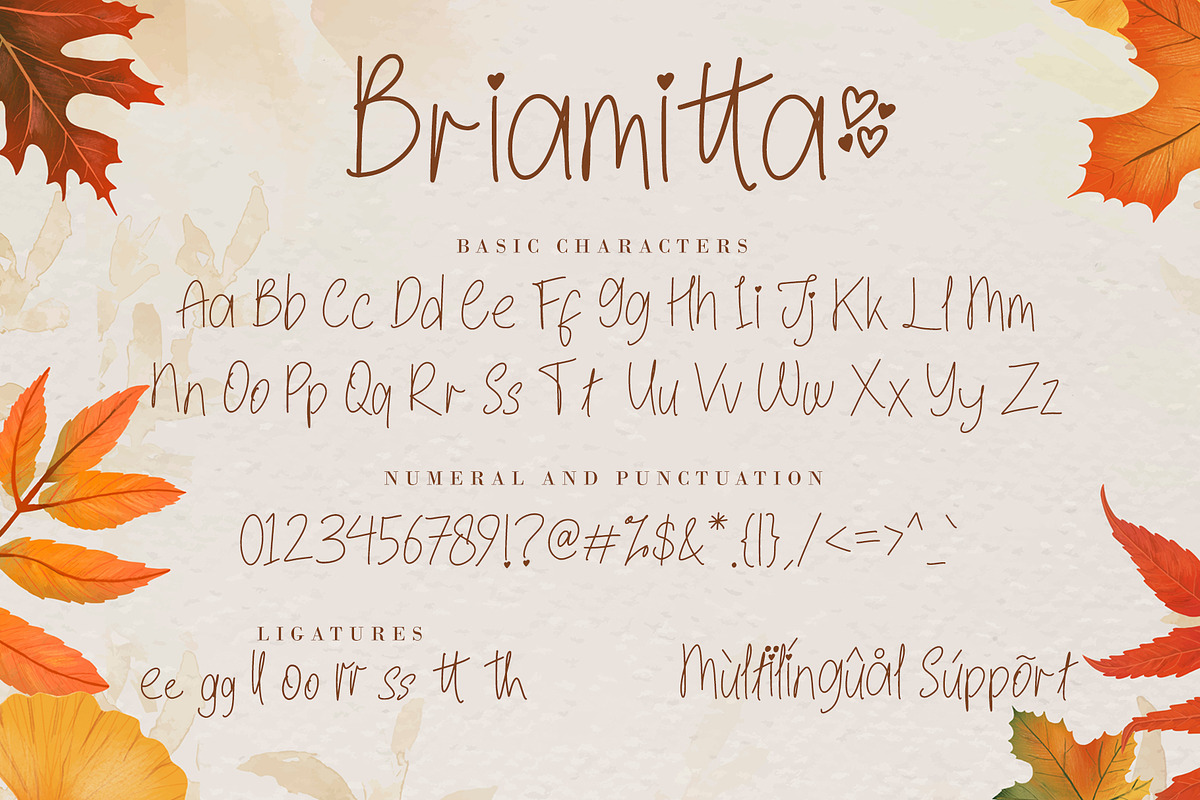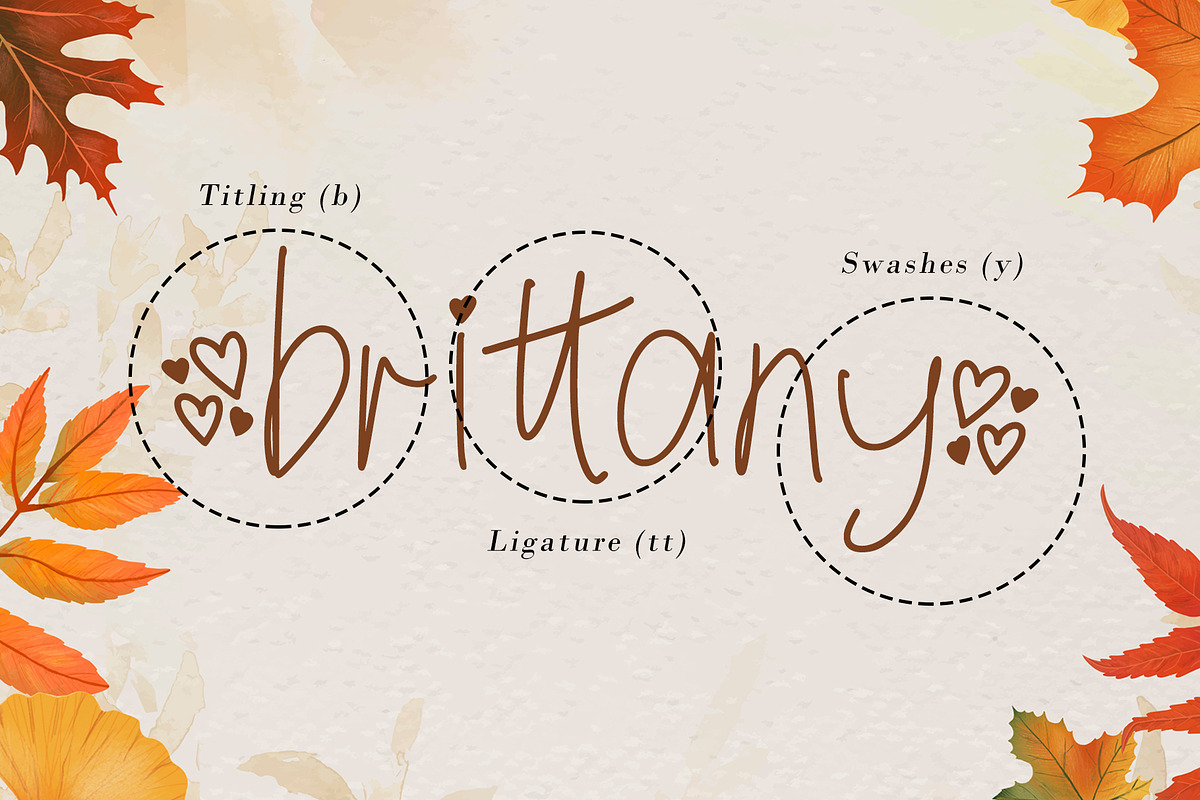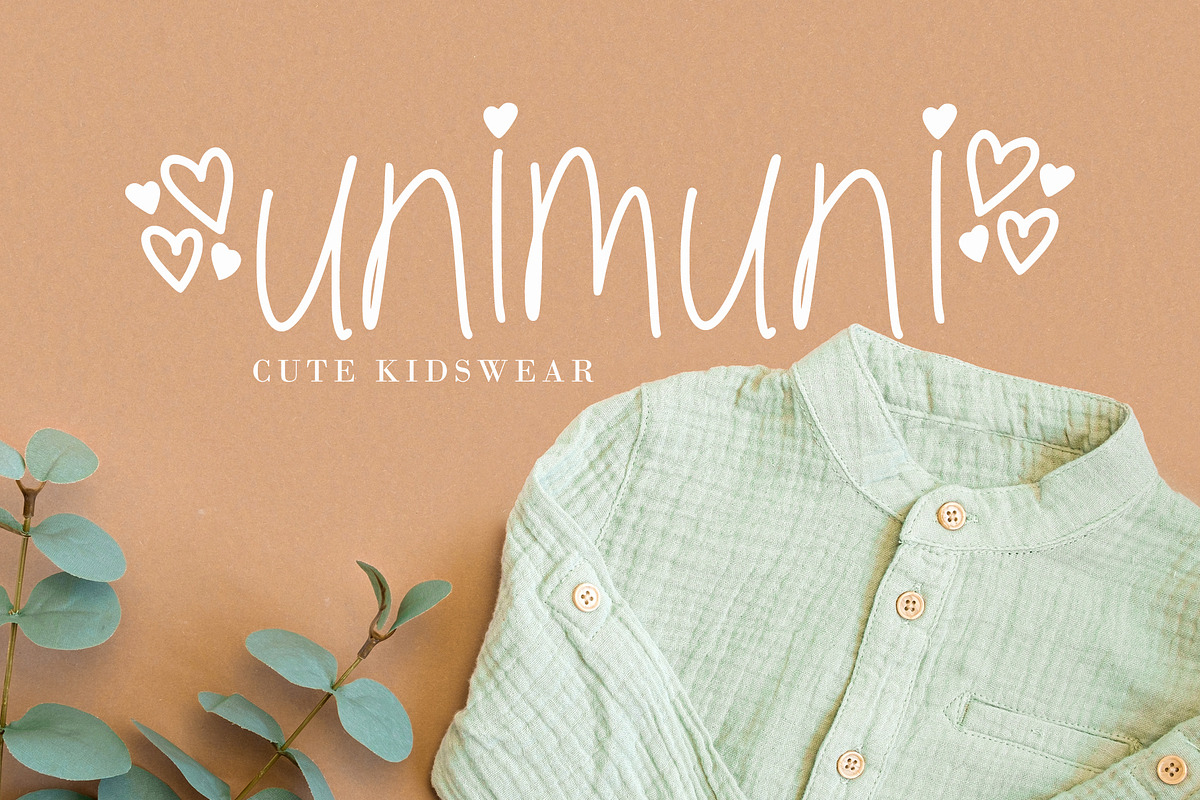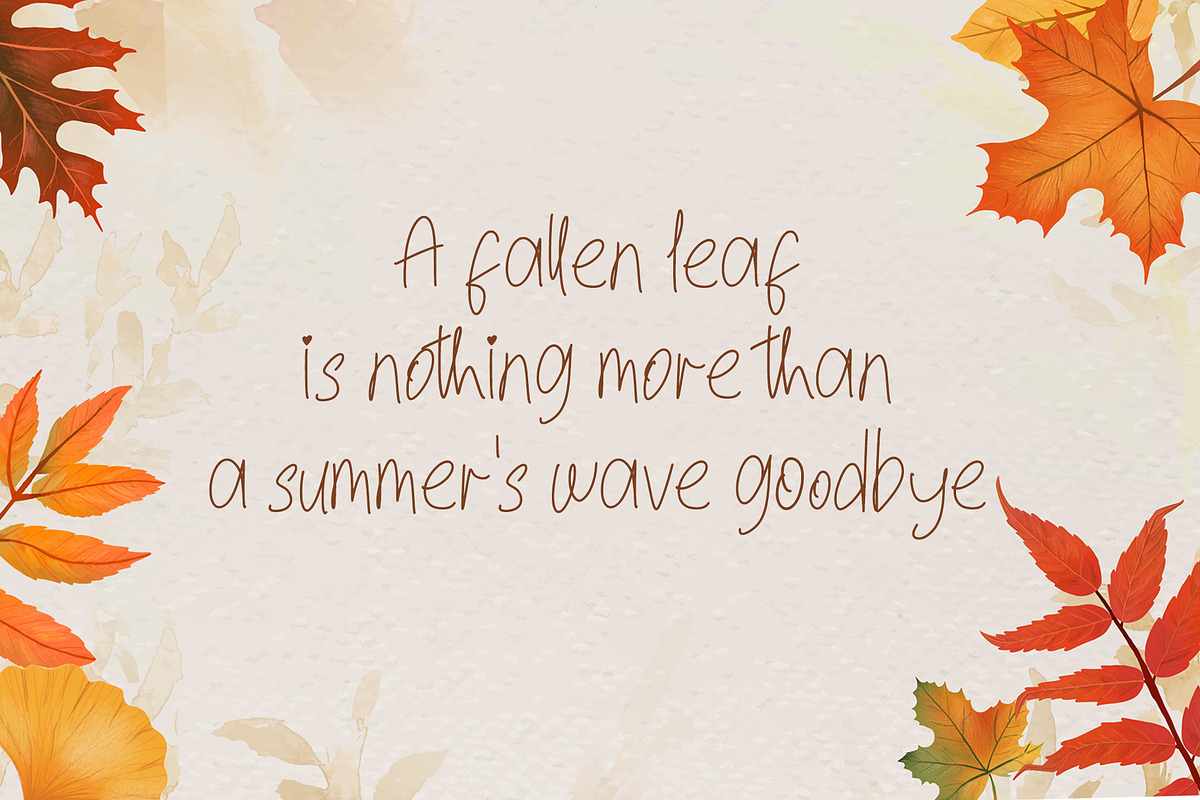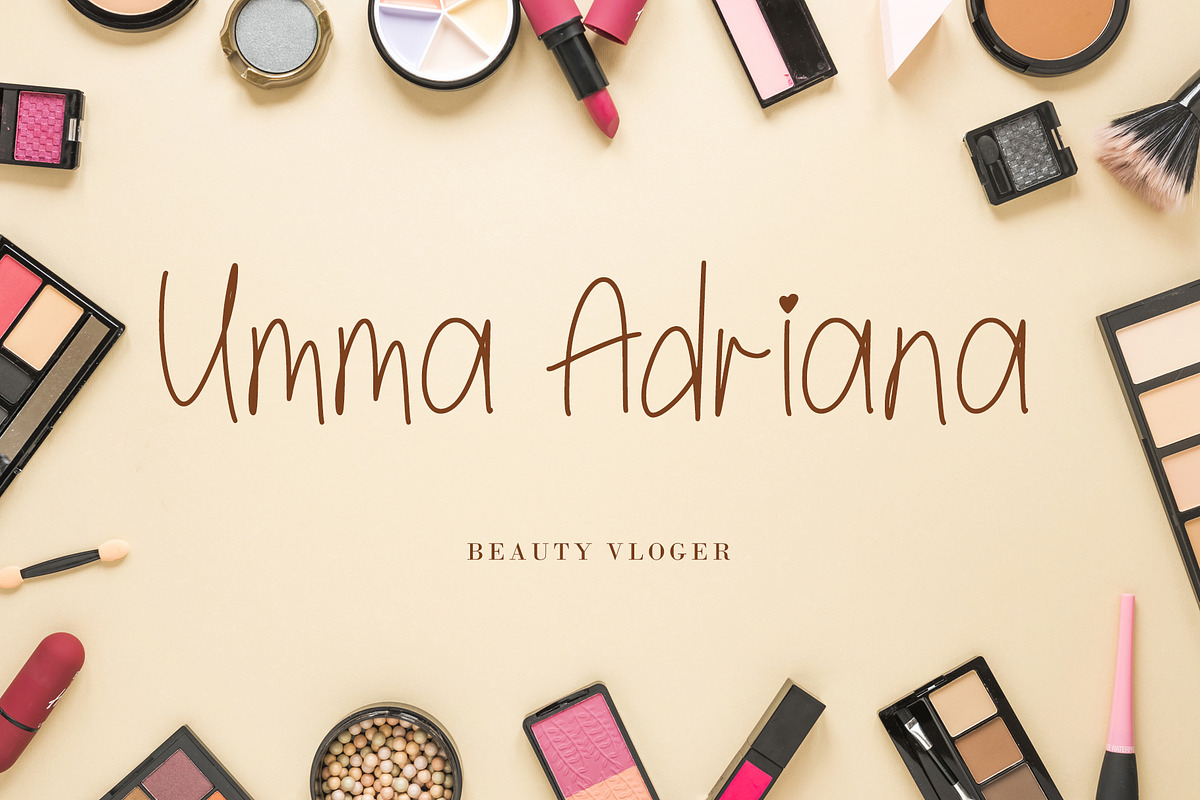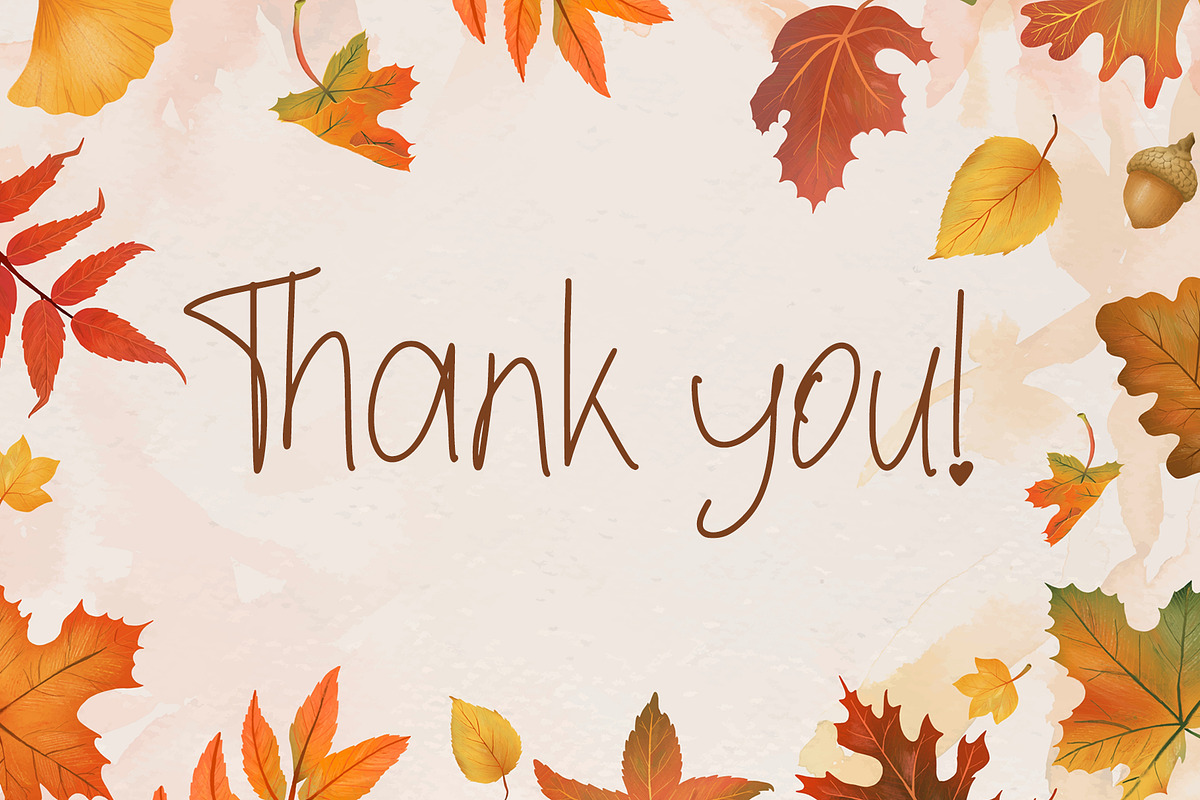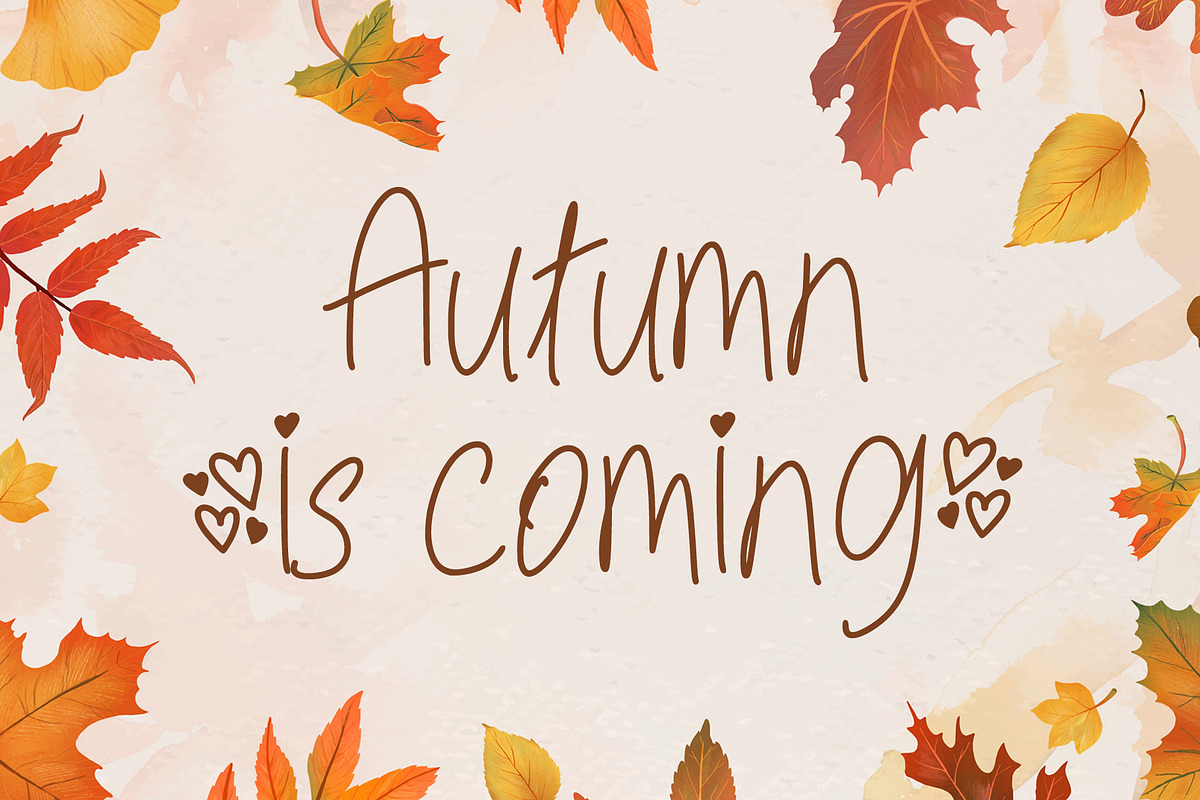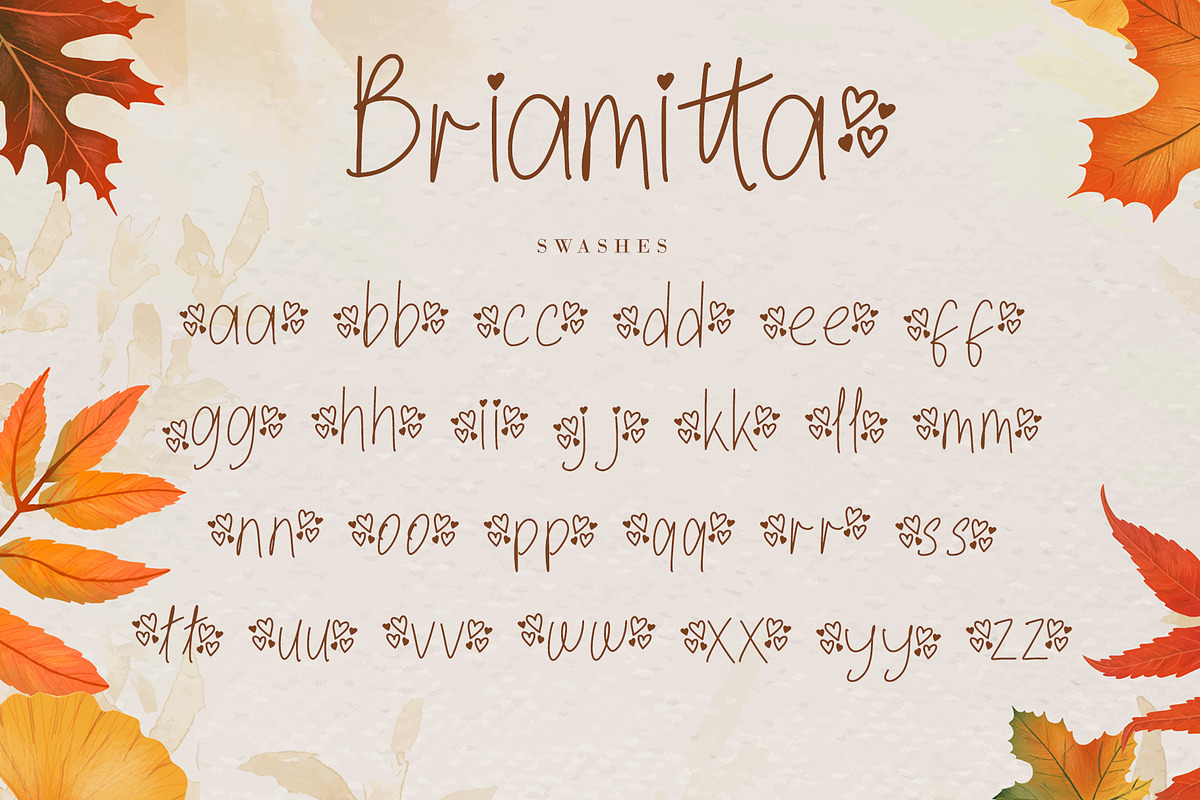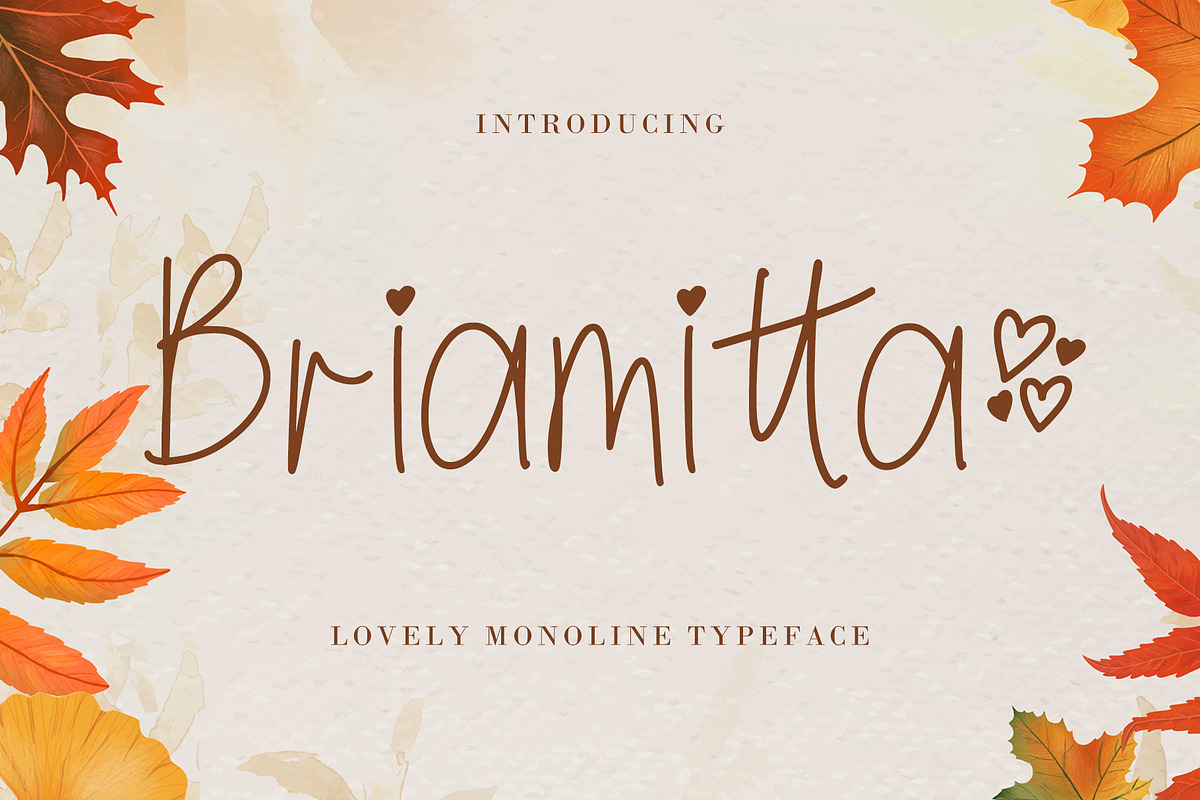
Briamitta
Briamitta is a monoline handwritten font that is cute, bright, and fun. It is perfect for children-themed designs, especially when combined with bright and pastel colors. Add this beautiful display font to each of your creative ideas, and notice how it makes them stand out!
Briamitta Features :
- (a-z) swashes, (a-z) titling, ligatures
- Support multilingual; ä ö ü Ä Ö Ü ß ¿ ¡